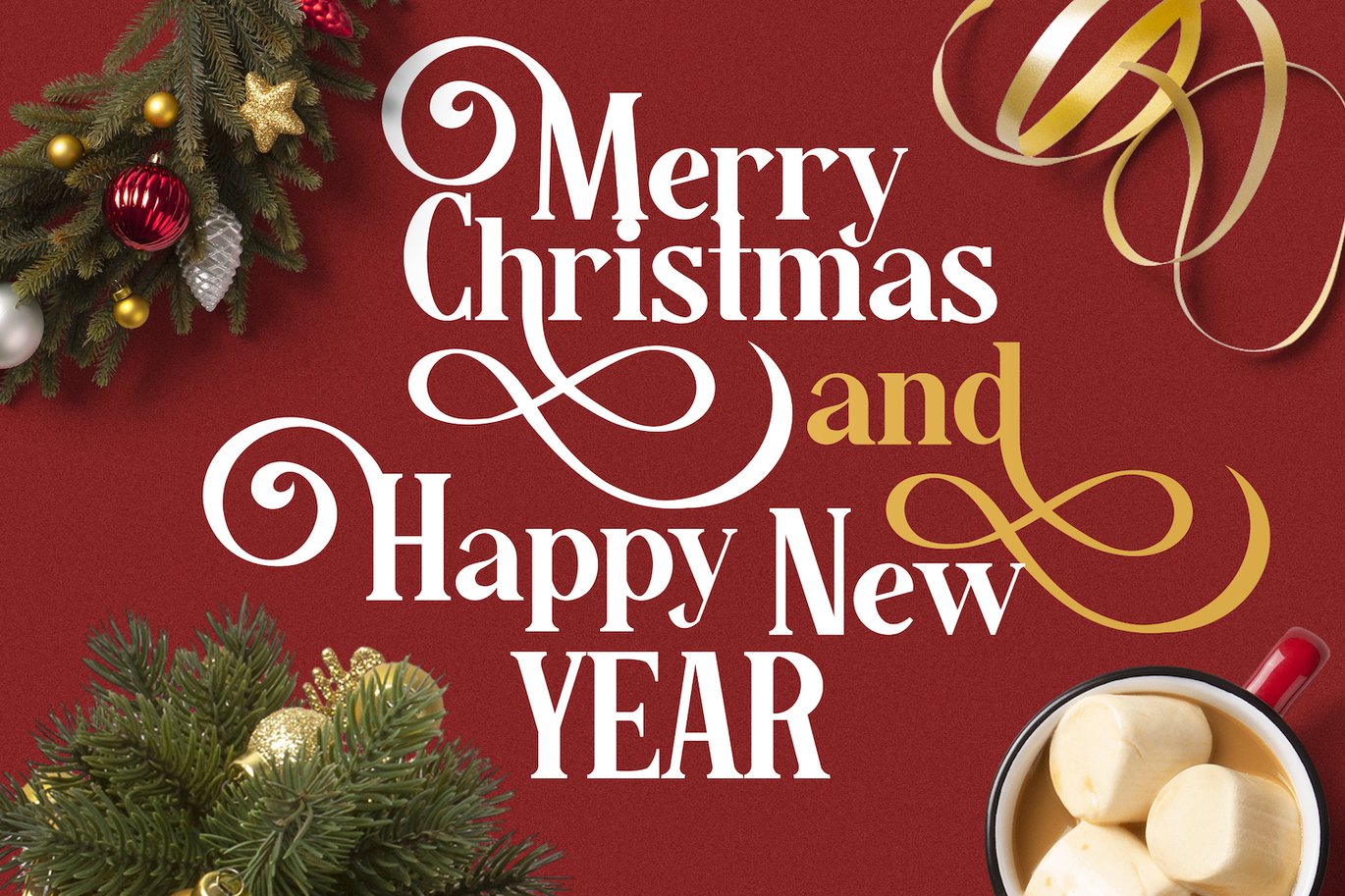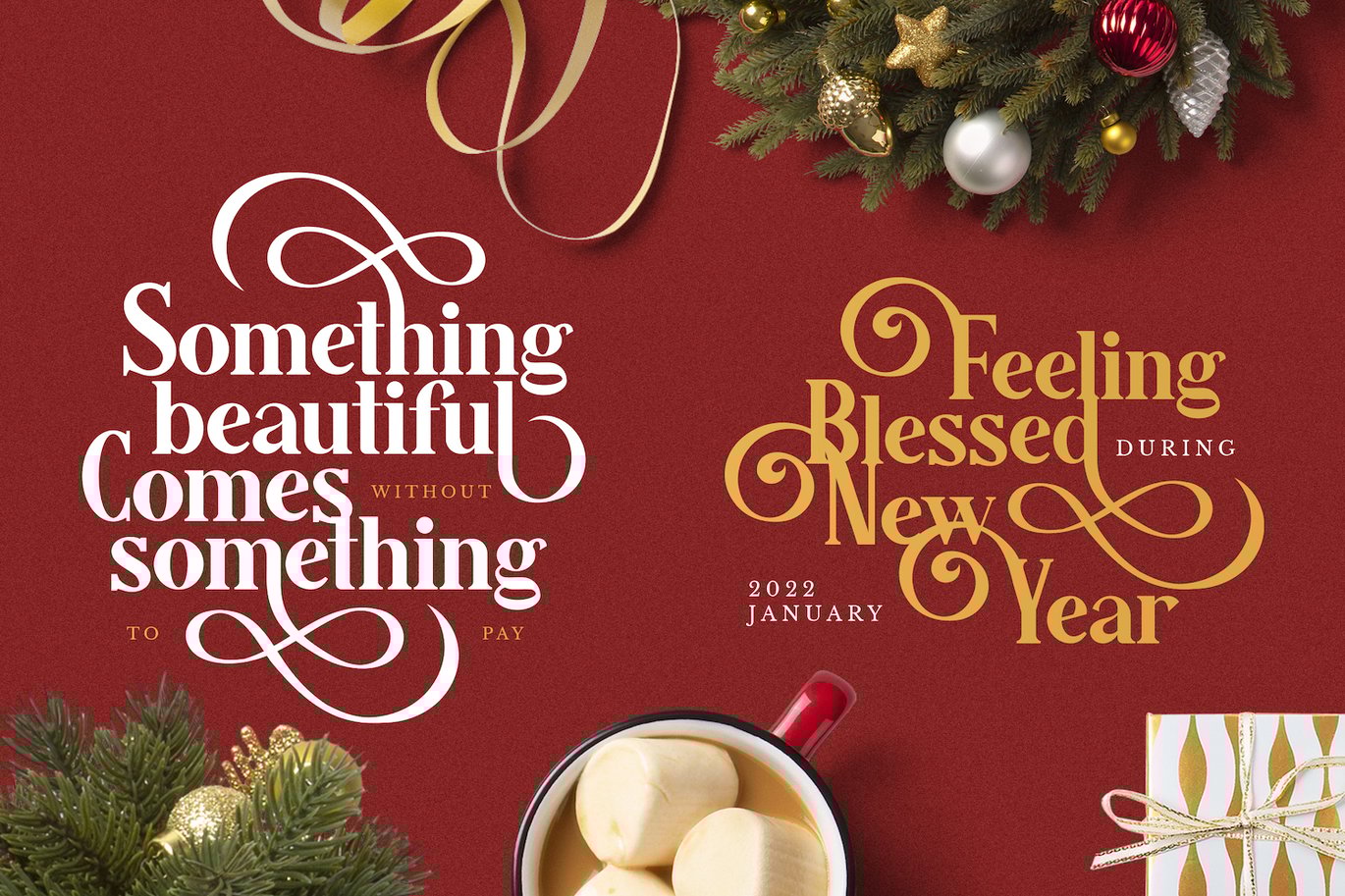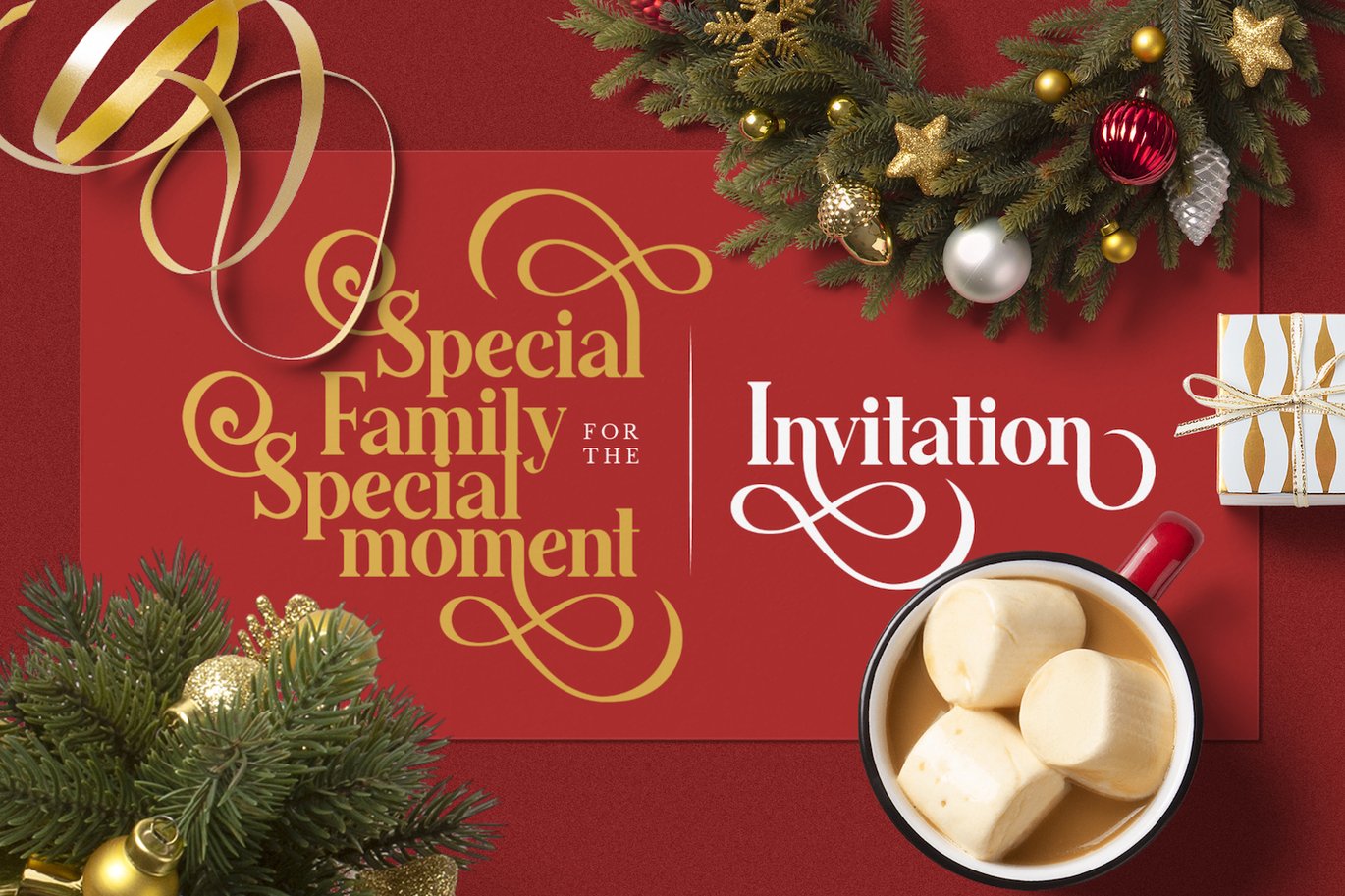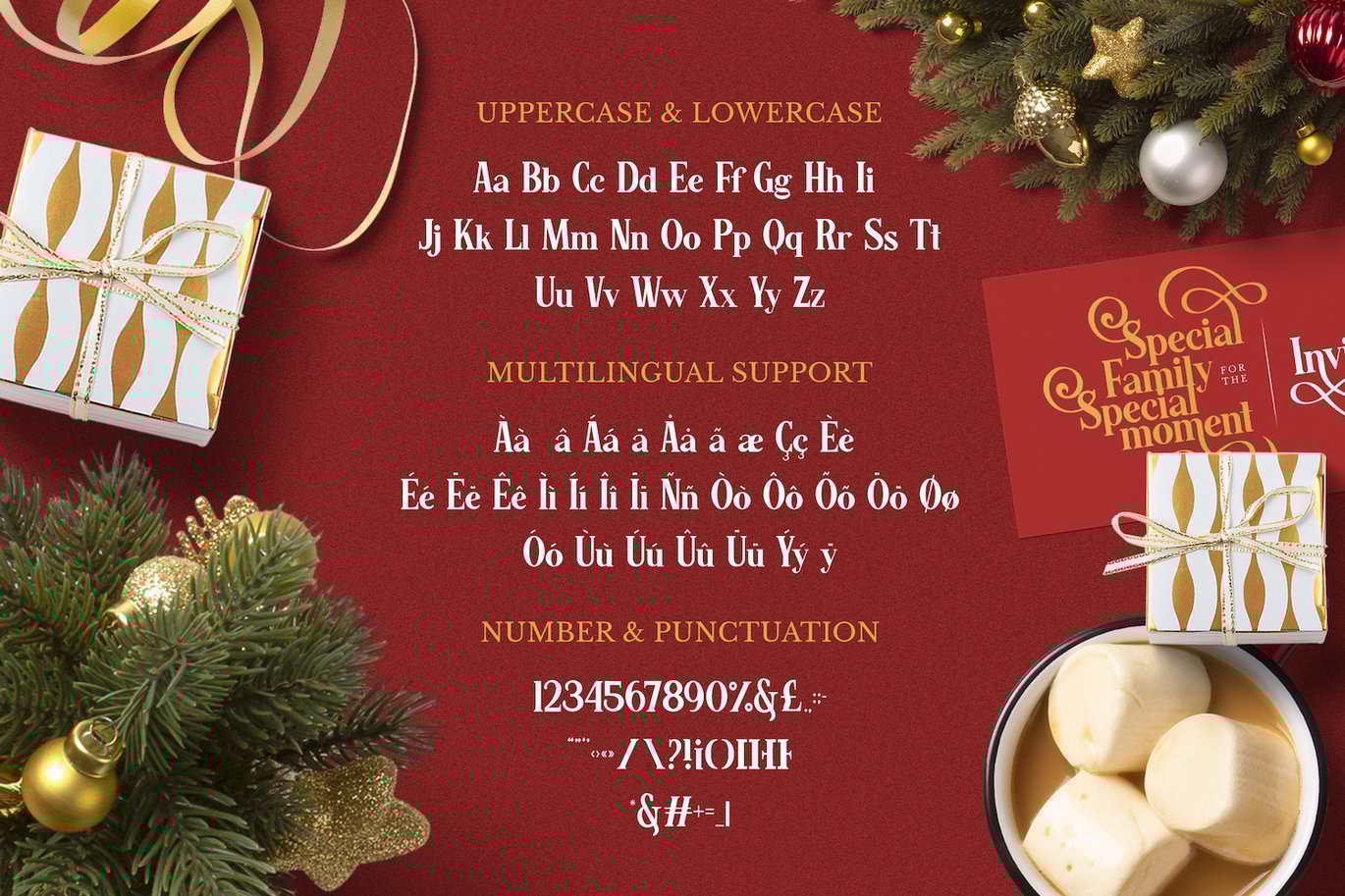
Atasrikun – Christmas Font
Presenting Atasrikun Font is suitable logo, branding, book, t-shirt, invitation, magazine, winter season, headline and etc. Our fonts have Uppercase & Lowercase, Numeral & Punctuation, Multilingual support and Opentype Features. For Amazing designs you can mix with other fonts as a complement.